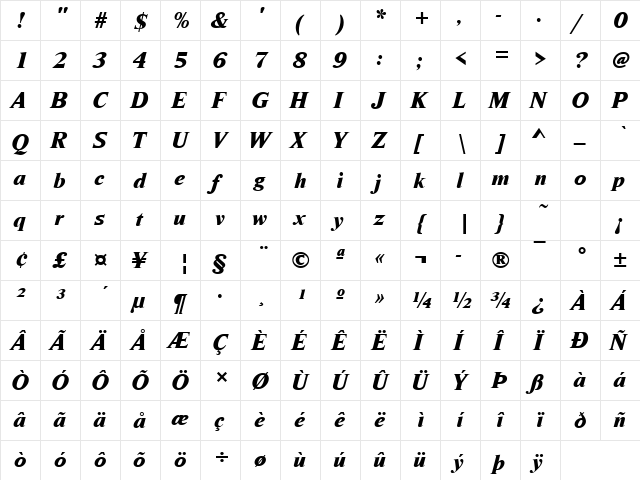
Nimbus Roman Becker DExtBol Italic
Design Context for Nimbus Roman Becker DExtBol Typeface
Nimbus Roman Becker DExtBol offers clean, dependable letterforms without strong stylistic allegiance, making it a practical choice for designers who need flexibility. The slanted form adds forward momentum and visual energy.
Pro Tip: Try Nimbus Roman Becker DExtBol for annotation and caption copy alongside an upright companion — the contrast in angle creates a dynamic but ordered typographic system.